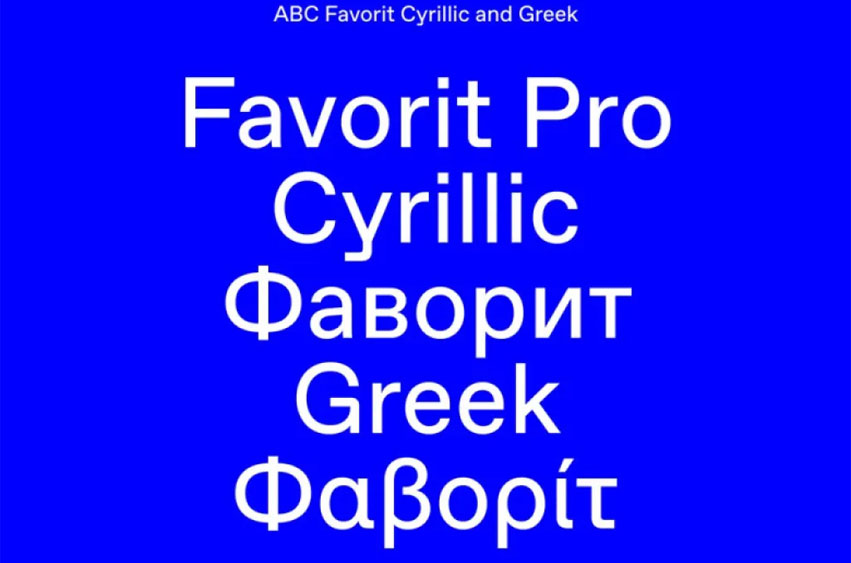
ABC Favorit Font
ABC Favorit Font is an elegant low-contrast grotesque that combines geometric rigidity with subtle eccentricities for a fun touch. Available in five weights with matching italics and special cuts (such as Favorit Lining), Favorit is available to be used across different media types and platforms.
ABC Favorit has many subfamilies available, such as ABC Favorit Extended, ABCFavorit Expanded and the mono-spaced ABCFavorit Mono. ABC Favorit Lining stands out as being smarter and newer compared to its counterpart; featuring its “smart underline” integrated directly into its font design.
ABC Favorit Lining allows the descending characters of all alphabets to be combined to form unique letter forms, while turning off Connected mode allows words’ first and last letters to join with an extremely underline. ABC Favorit Lining comes in five weights with Italic versions.